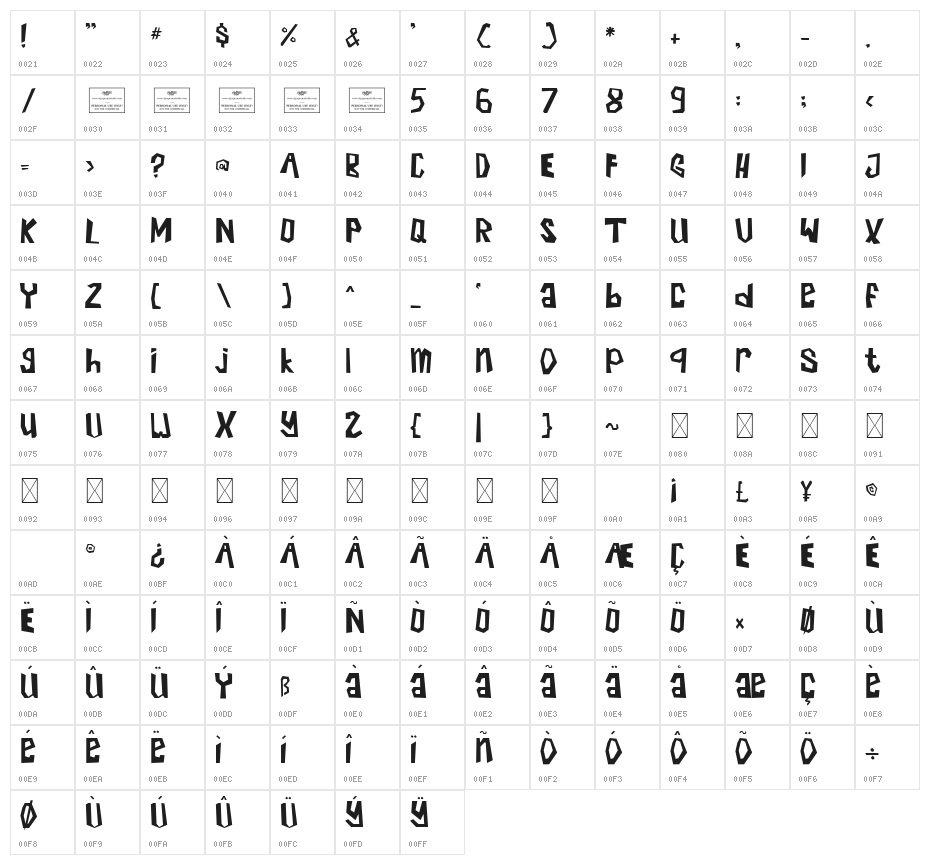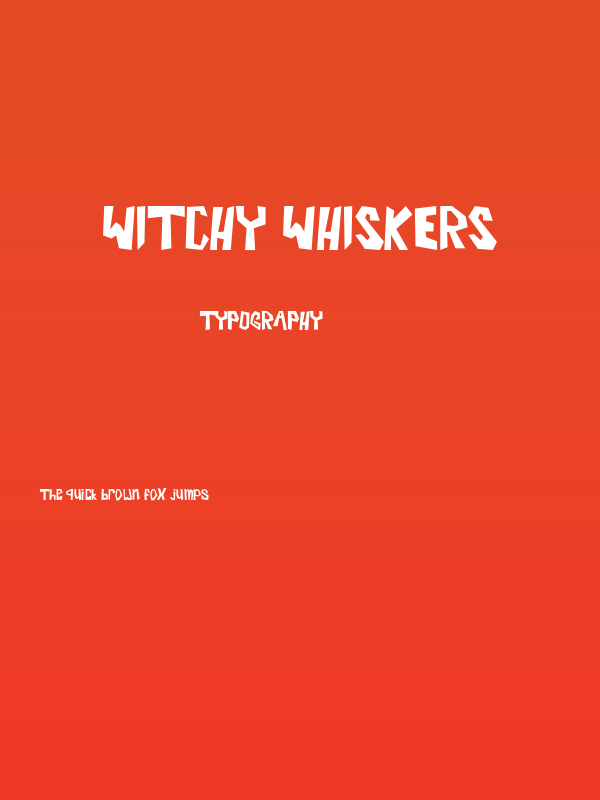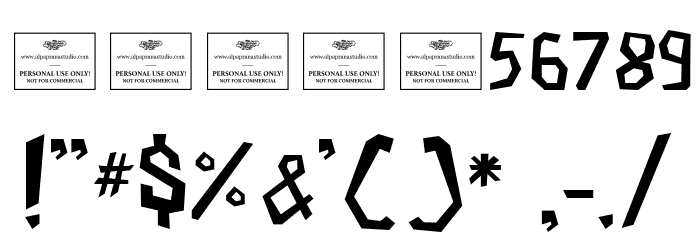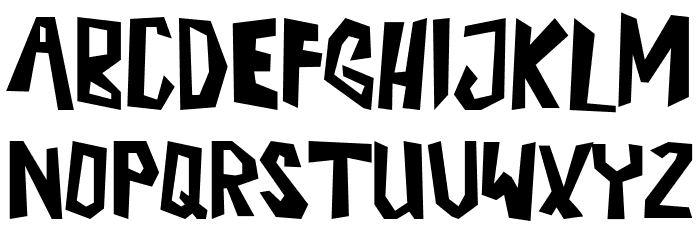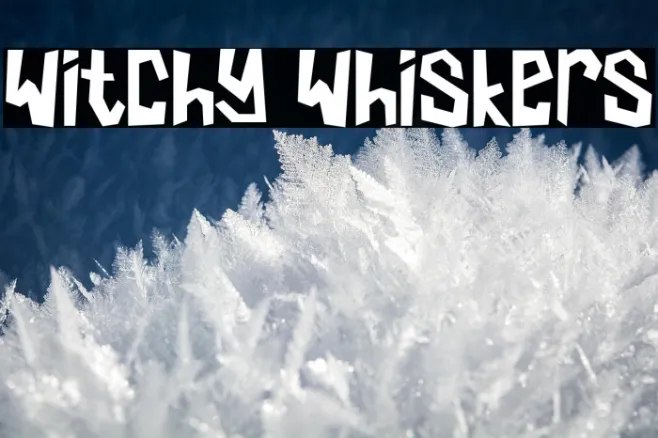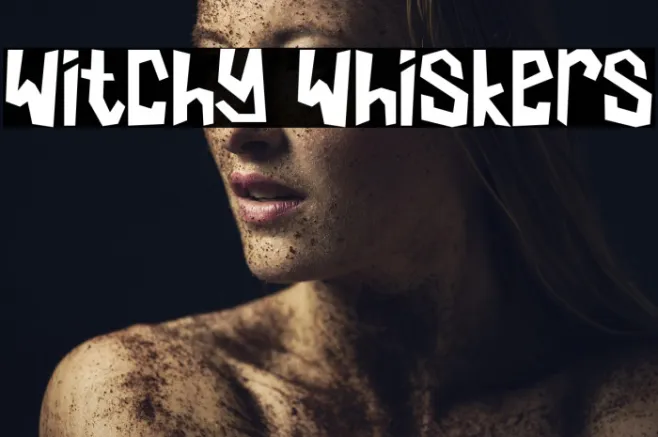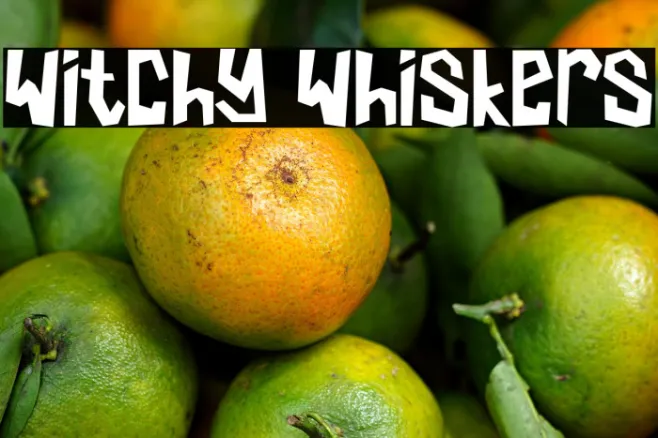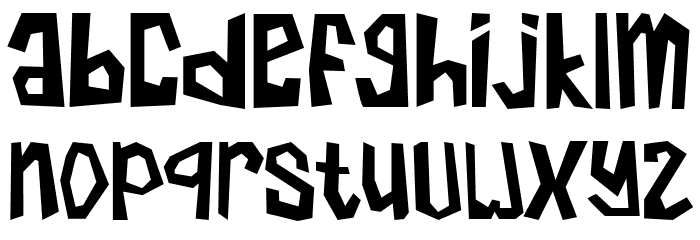
Witchy Whiskers Font
Witchy Whiskers Description
This font features a quirky, hand-drawn style with irregular, jagged edges that give it a playful and whimsical appearance. The characters are bold and slightly tilted, creating a dynamic and energetic feel. The uppercase and lowercase letters maintain a consistent style, with exaggerated angles and a slightly uneven baseline, adding to the font's charm. The numbers and special characters follow the same design principles, ensuring a cohesive look across all elements. This font is perfect for projects that require a fun and informal touch.
| Proposed Projects | Ideal for Halloween-themed designs, children's book covers, playful posters, and creative branding projects. |